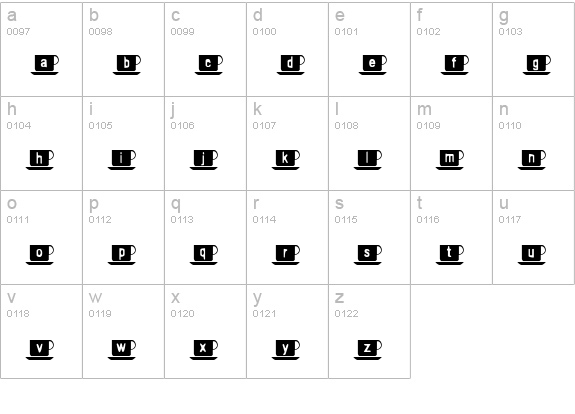
Mmmm Coffee Font Details
Introducing the delightful and charming Mmmm Coffee font! This unique and eye-catching font is inspired by the cozy warmth of a freshly brewed cup of coffee, with its playful curves and inviting design. Perfect for adding a touch of whimsy and character to your projects, Mmmm Coffee font is sure to stand out and make a statement. The best part? Mmmm Coffee font is completely free to download at FontsMarket.com! Embrace the warmth and comfort of this delightful font in your designs, whether for branding, invitations, packaging, or any creative project that needs a touch of personality. Download Mmmm Coffee font today and let your creativity flow with this charming and free typeface.